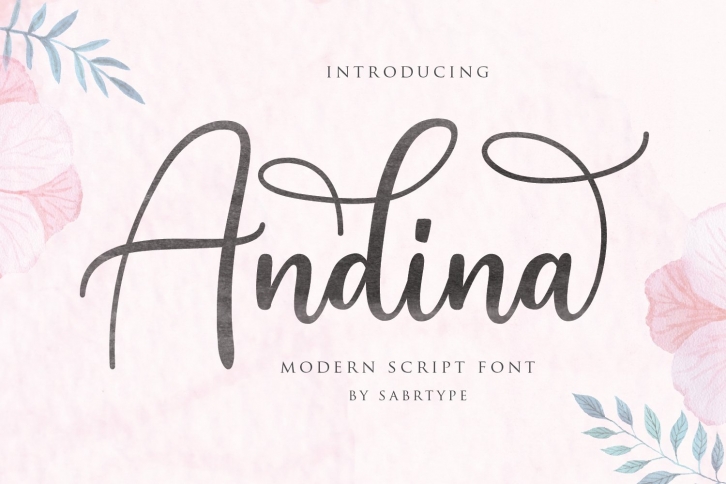
Introduce Andina Script Font, a new script font from Sabrtype studio in a modern, simple and elegant style.
Andina Script font is perfect for many different project such as logos & branding, headline, invitation, stationery, wedding designs, social media posts, advertisements, product packaging, product designs, label, photography, watermark, special events or anything.